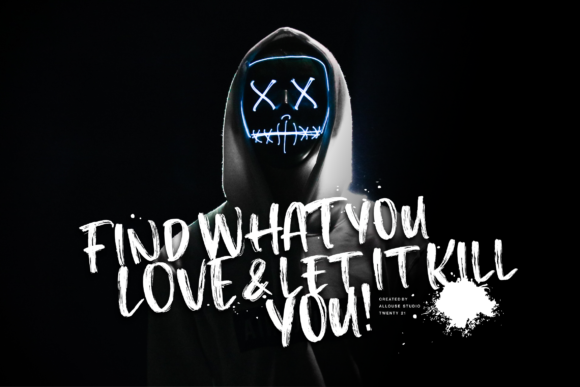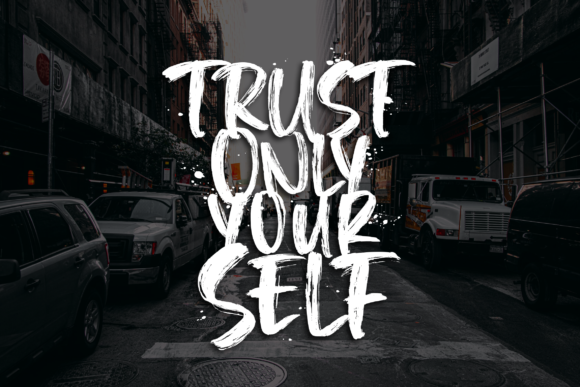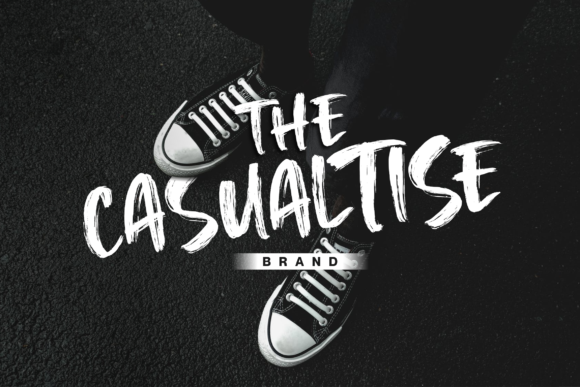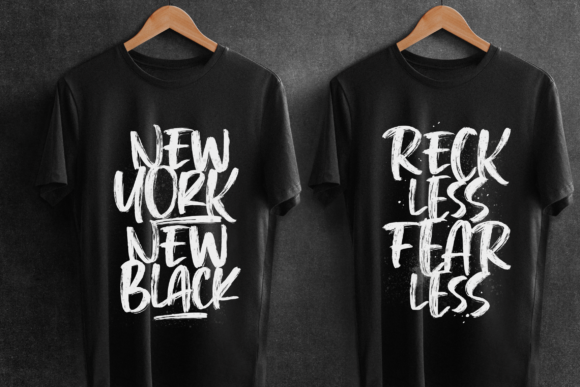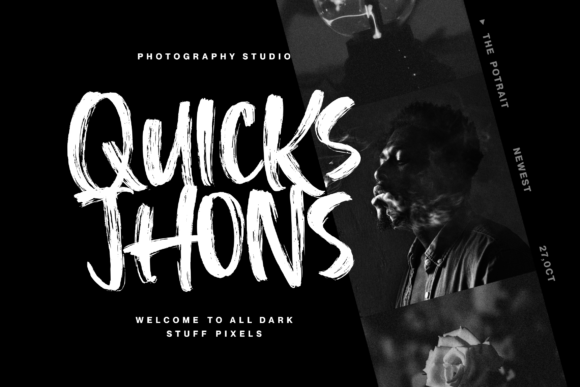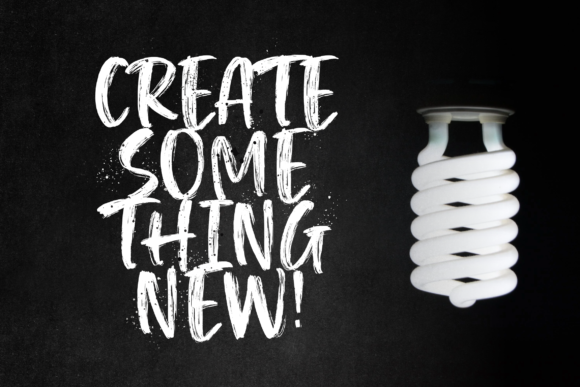
Cinemair Font: Elevate Your Designs with Authentic Brush Style
In the world of design, typography plays a crucial role in conveying messages, expressing creativity, and capturing attention. For designers and crafters seeking a unique and authentic brush display font, Cinemair is an excellent choice. This versatile font is designed to satisfy all modern design needs, making it perfect for various applications, from product packaging and branding projects to magazines, social media, weddings, and more.
What is Cinemair Font?
Cinemair is a carefully crafted brush display font that exudes a sense of authenticity and style. Its unique, hand-brushed texture gives it a distinctive look that can instantly elevate your designs. Whether you’re working on a commercial project or a personal craft, Cinemair’s expressive and artistic feel makes it an ideal choice.
Key Features of Cinemair Font
- Authentic Brush Style: Cinemair boasts a genuine brush font style that adds a personal touch to your designs.
- Versatility: Suitable for a wide range of design projects, including product packaging, branding, magazines, social media posts, wedding designs, and more.
- Modern Design Needs: Specifically designed to meet the demands of modern design, ensuring your projects look contemporary and stylish.
Applications of Cinemair Font
Cinemair’s flexibility makes it suitable for numerous design applications:
- Product Packaging: Stand out on store shelves with eye-catching packaging designs.
- Branding Projects: Create a memorable brand identity with Cinemair’s unique style.
- Magazines and Editorial Design: Add a touch of elegance and sophistication to your magazine layouts.
- Social Media Graphics: Capture attention on social media platforms with stunning, Cinemair-enhanced graphics.
- Wedding Designs: Make your wedding stationery, decor, or social media posts truly special with Cinemair’s romantic, brush-stroked look.
Why Choose Cinemair Font?
Choosing Cinemair for your design projects comes with several benefits:
- Unique Style: Cinemair offers a distinctive brush style that sets your designs apart.
Tips for Using Cinemair Font Effectively
To maximize the impact of Cinemair in your designs:
- Experiment with Colors: Cinemair looks great in various colors, so don’t be afraid to experiment and find the perfect match for your design.
- Combine with Other Fonts: Pair Cinemair with complementary fonts for a layered, interesting look.
- Play with Textures: Enhance Cinemair’s brush effect by combining it with subtle textures or backgrounds.
Cinemair Font is a powerful tool for designers and crafters looking to infuse their projects with a touch of authenticity and style. Its versatile, modern, and authentic brush display font characteristics make it suitable for a wide range of applications. By incorporating Cinemair into your design workflow, you can create stunning, professional-grade projects that capture attention and convey your message effectively. Whether you’re designing for digital platforms or crafting something with your hands, Cinemair is an excellent choice for elevating your designs.